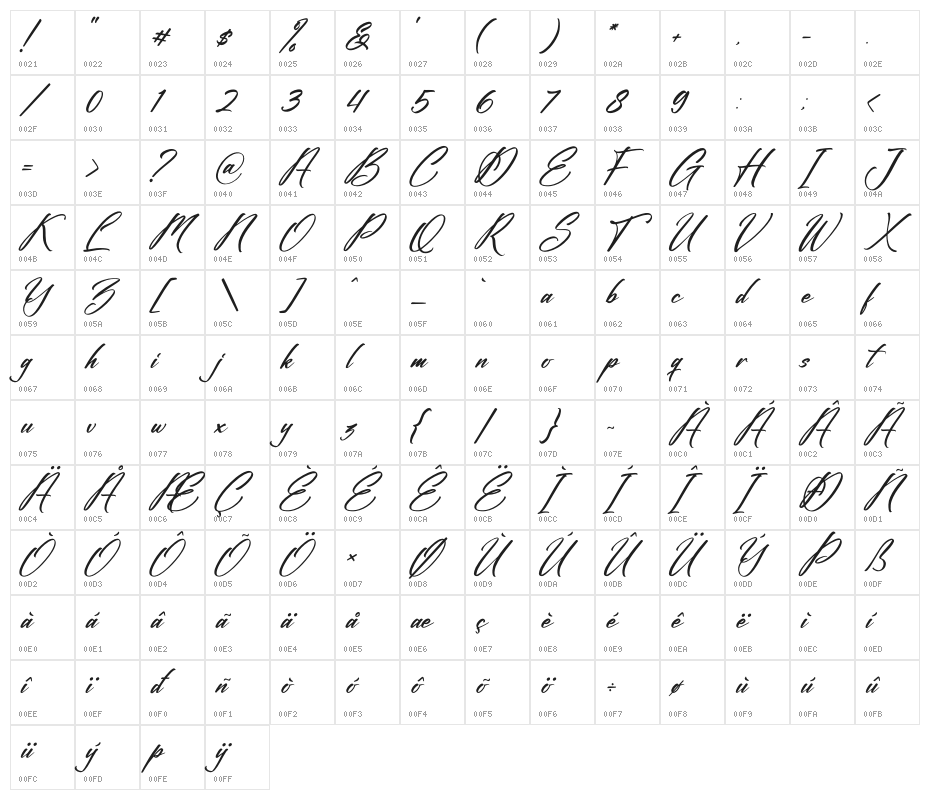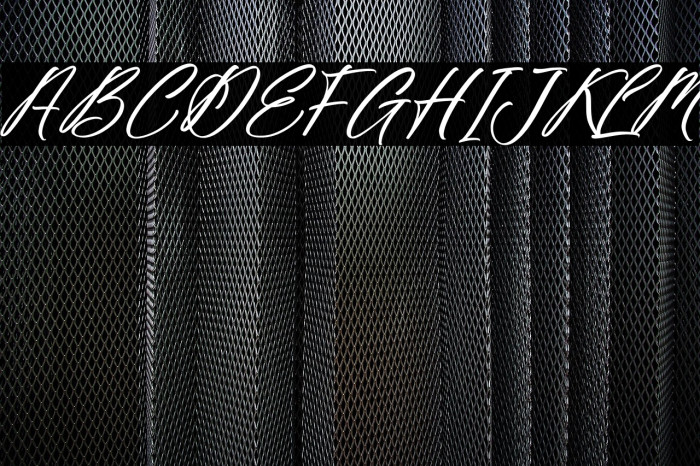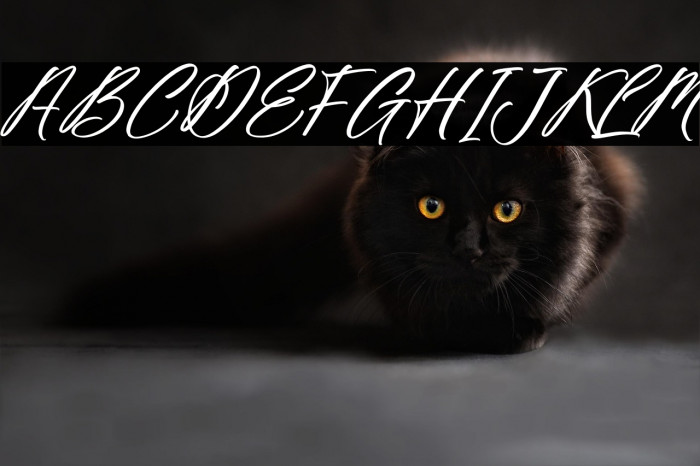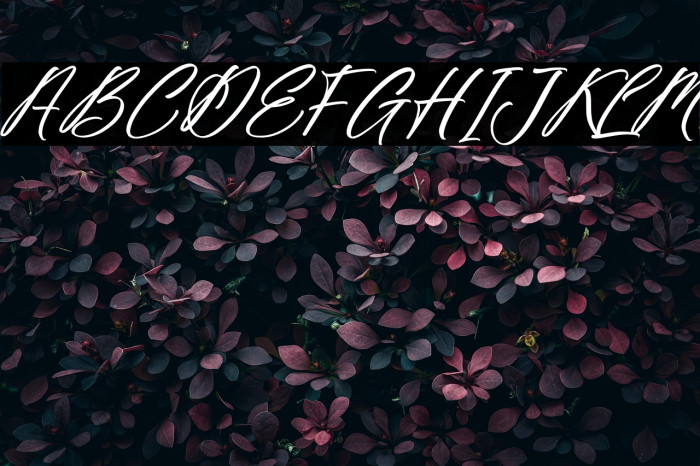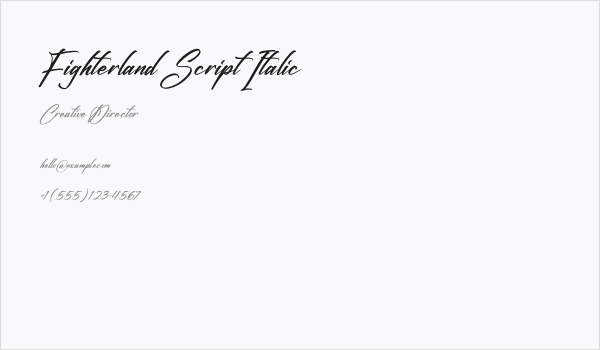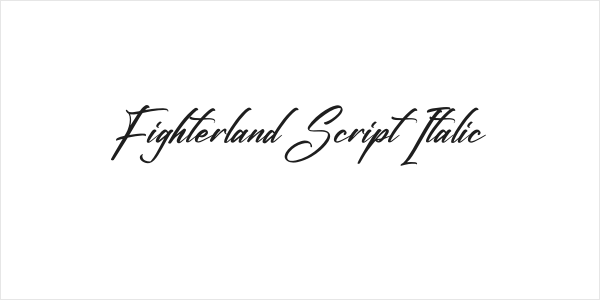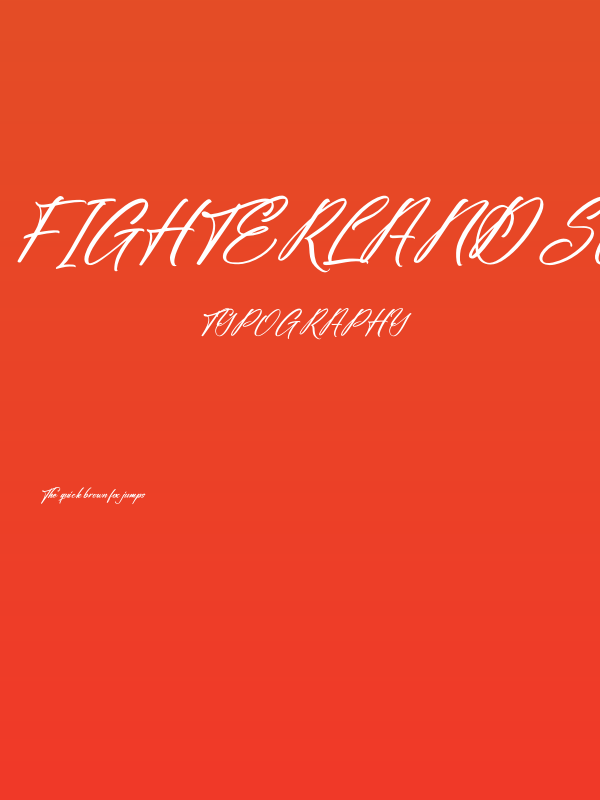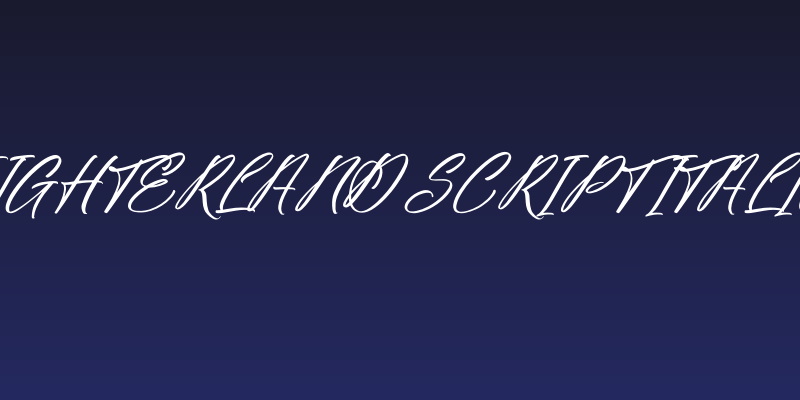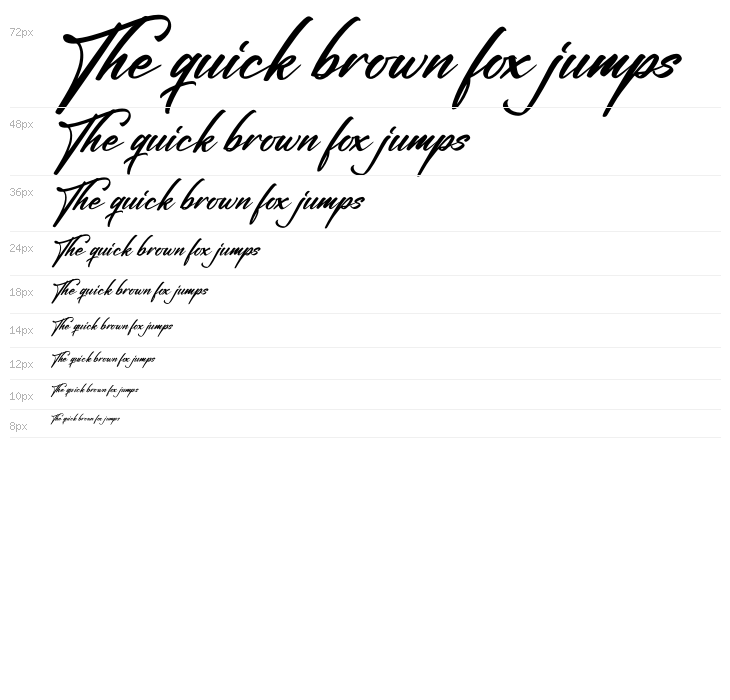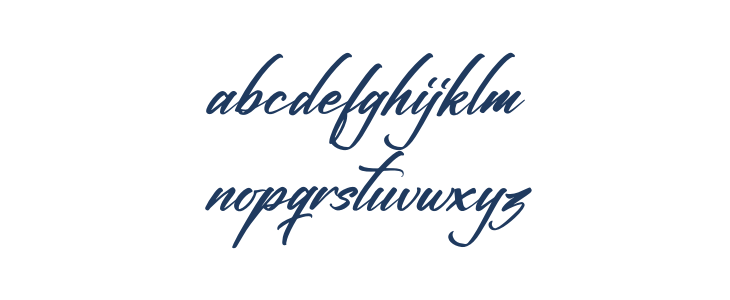
Fighterland Script Italic Font
Fighterland Script Italic Description
This font showcases a dynamic and fluid script style, characterized by its elegant, flowing lines and cursive nature. The letters are interconnected, creating a seamless and continuous appearance that mimics natural handwriting. The uppercase letters are bold and slightly elongated, while the lowercase letters maintain a consistent rhythm and balance. The numerals and special characters follow the same cursive style, ensuring uniformity across all glyphs. This font exudes a sense of sophistication and creativity, making it ideal for projects that require a personal touch.